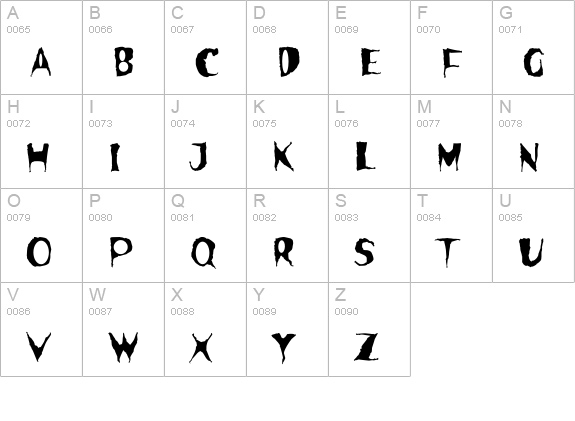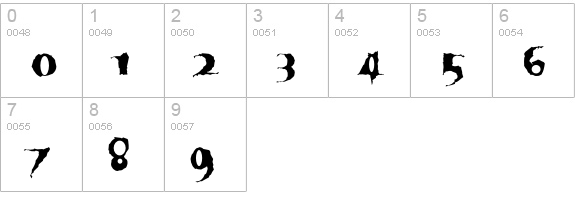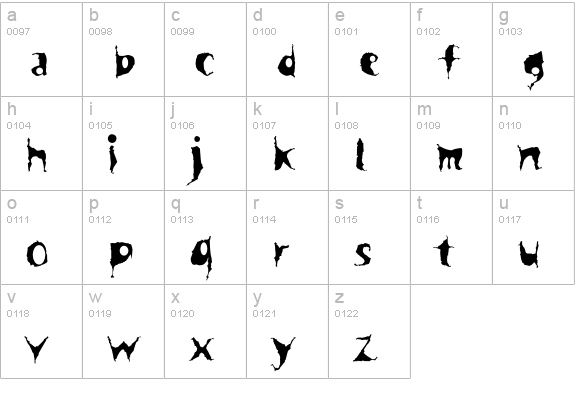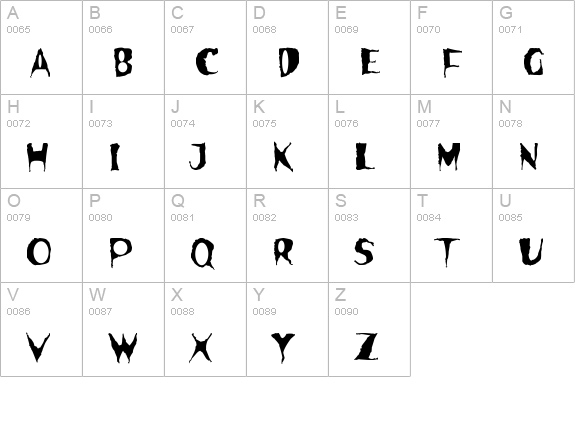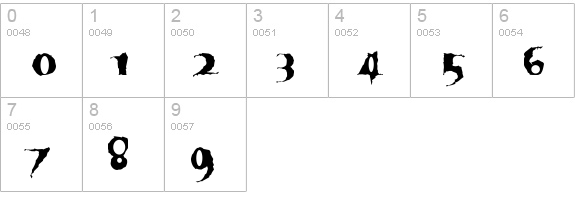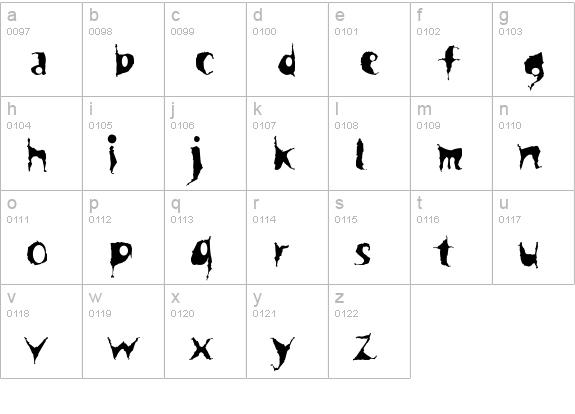
Spooky Std Font Details
Introducing Spooky Std, a hauntingly beautiful font that will send shivers down your spine. This font is perfect for all your eerie and mysterious design projects, whether it's spooky Halloween invitations, chilling movie posters, or hauntingly captivating book covers. Spooky Std features a unique combination of sharp edges and delicate curves, creating an otherworldly aesthetic that is sure to captivate your audience. Its intricate details and ghostly presence make it the perfect choice for adding a touch of the supernatural to your designs. But what makes Spooky Std truly special is that it is not only visually stunning, but also completely free! Yes, you read that right. This font is freely available to download at FontsMarket.com, the go-to destination for all your font needs. Now you can create spine-chilling designs without breaking the bank. With its bold presence and mysterious allure, Spooky Std is sure to become your go-to font for all things spooky. So why wait? Download Spooky Std today and let your designs take on a whole new level of darkness and intrigue. Embrace the supernatural and unleash your creativity with this hauntingly beautiful font.